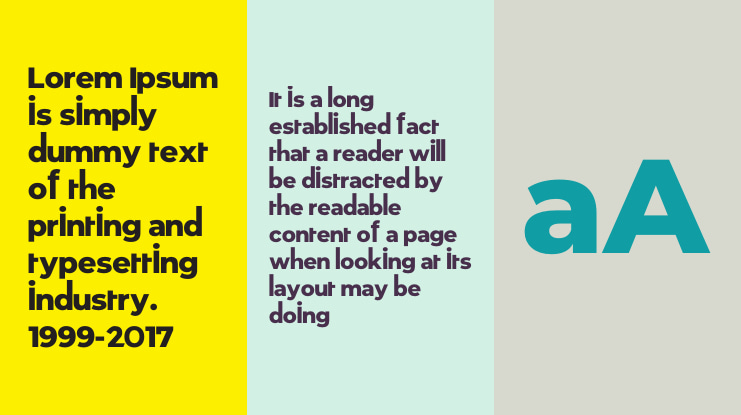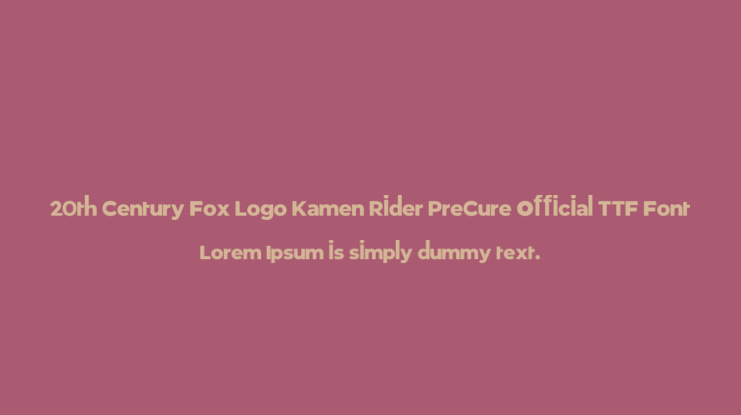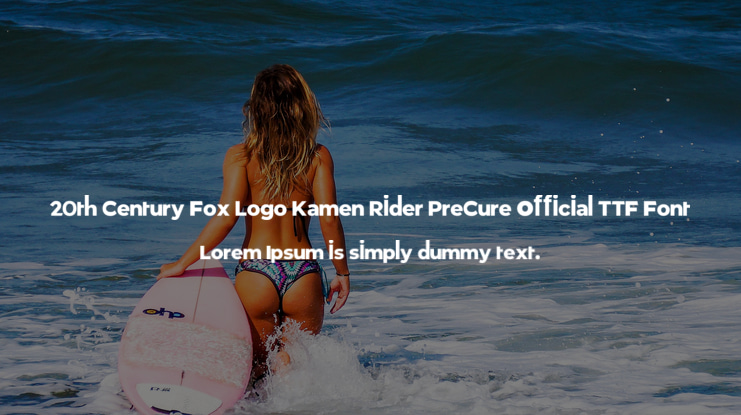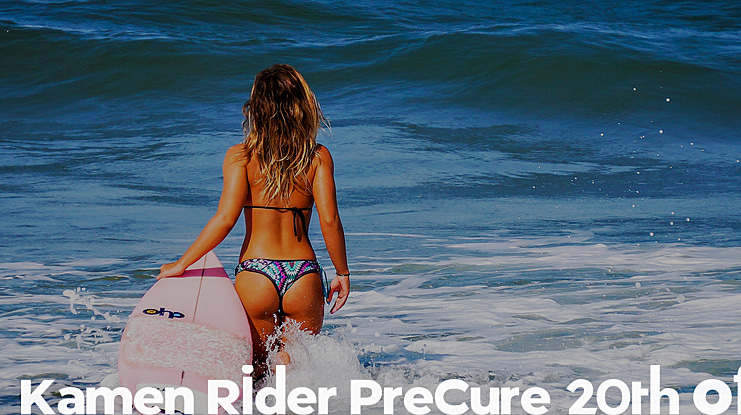
20th Century Fox Logo Kamen Rider PreCure Official Font
The Font Was Created in 2019 Restored in 2022!
This Font Was Made for Fans of Both Characters to Use for Recreation.
The 20th Century Fox Montserrat Font Was Designed by The Toei Tokusatsu Characters with The Same Shape of Letters!
It's Called... 20th Century Fox Official Kamen Rider PreCure Logo Font.
Known as 20th Century Montserrat Fox in New Version.
This Font Successfully Updated in 2022